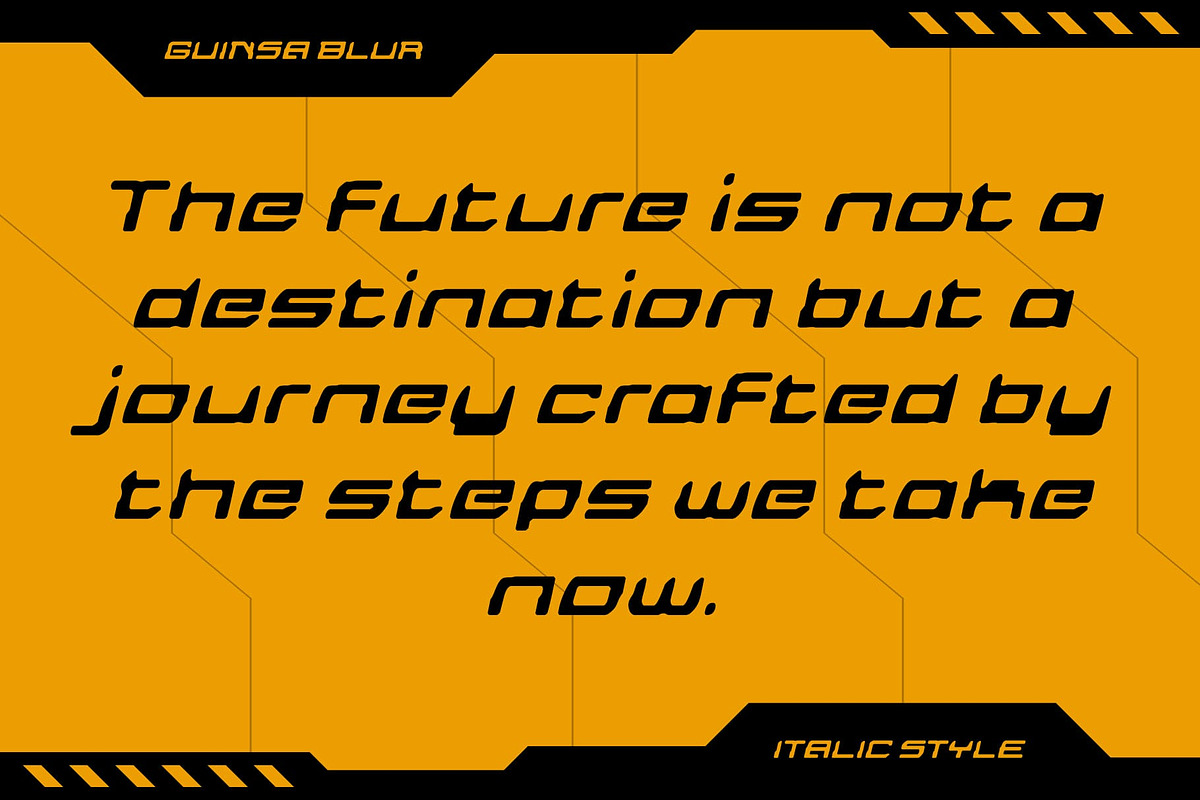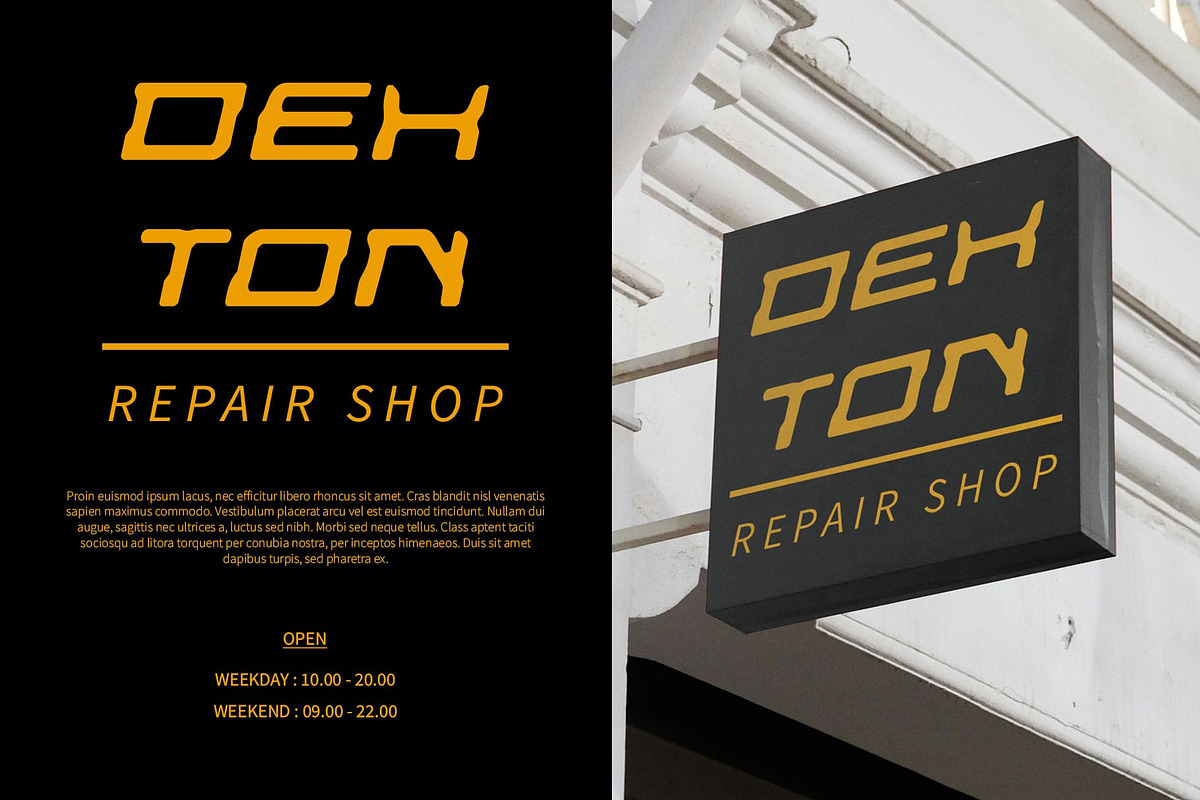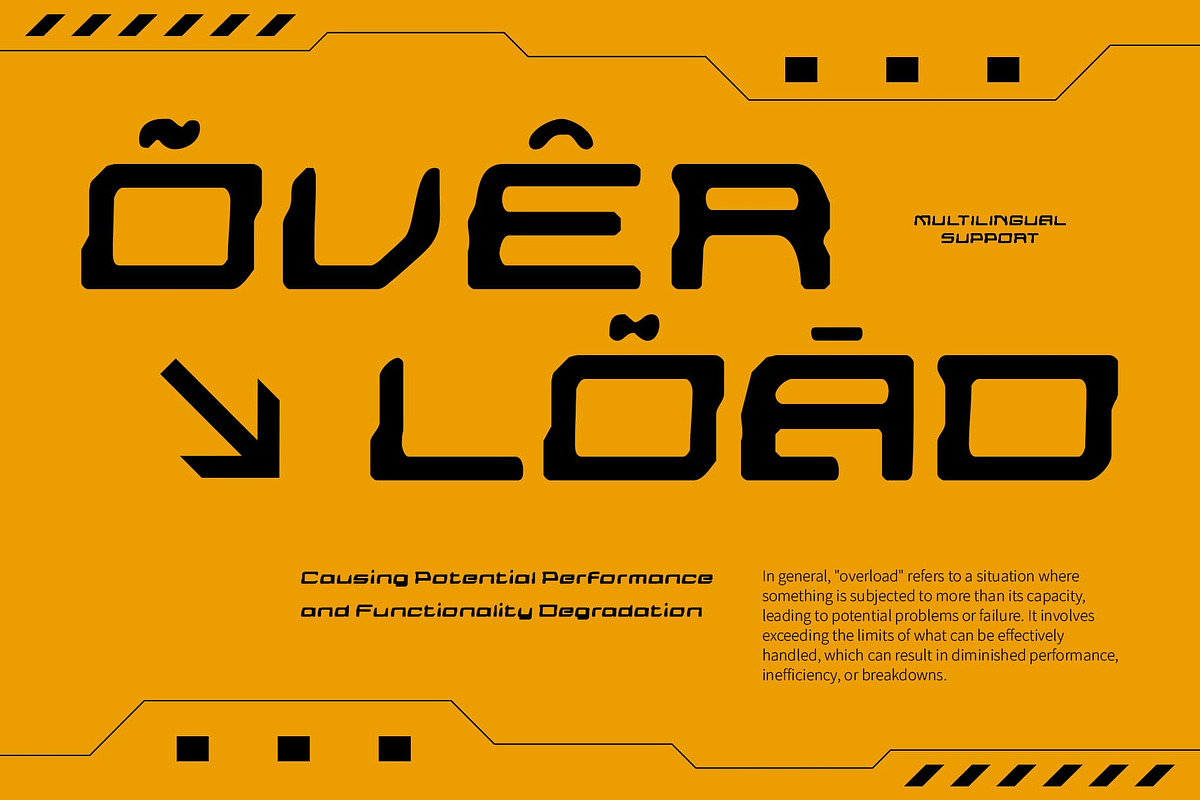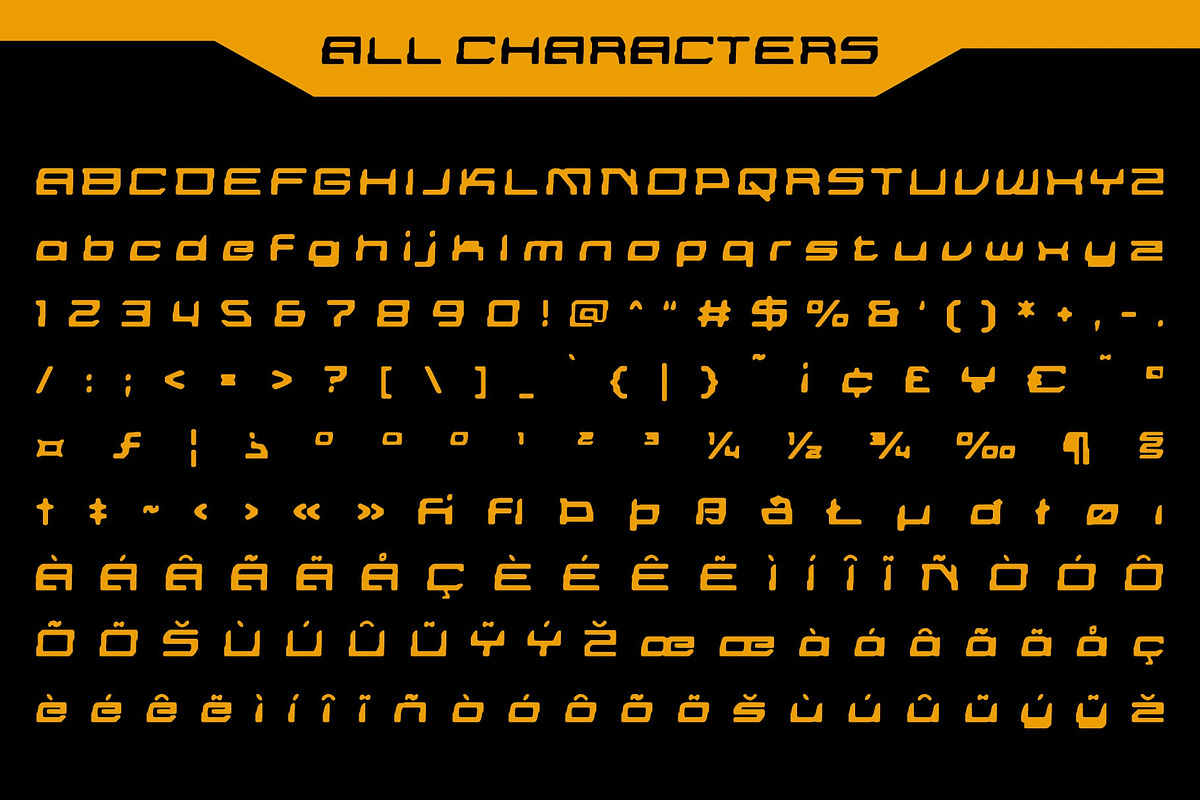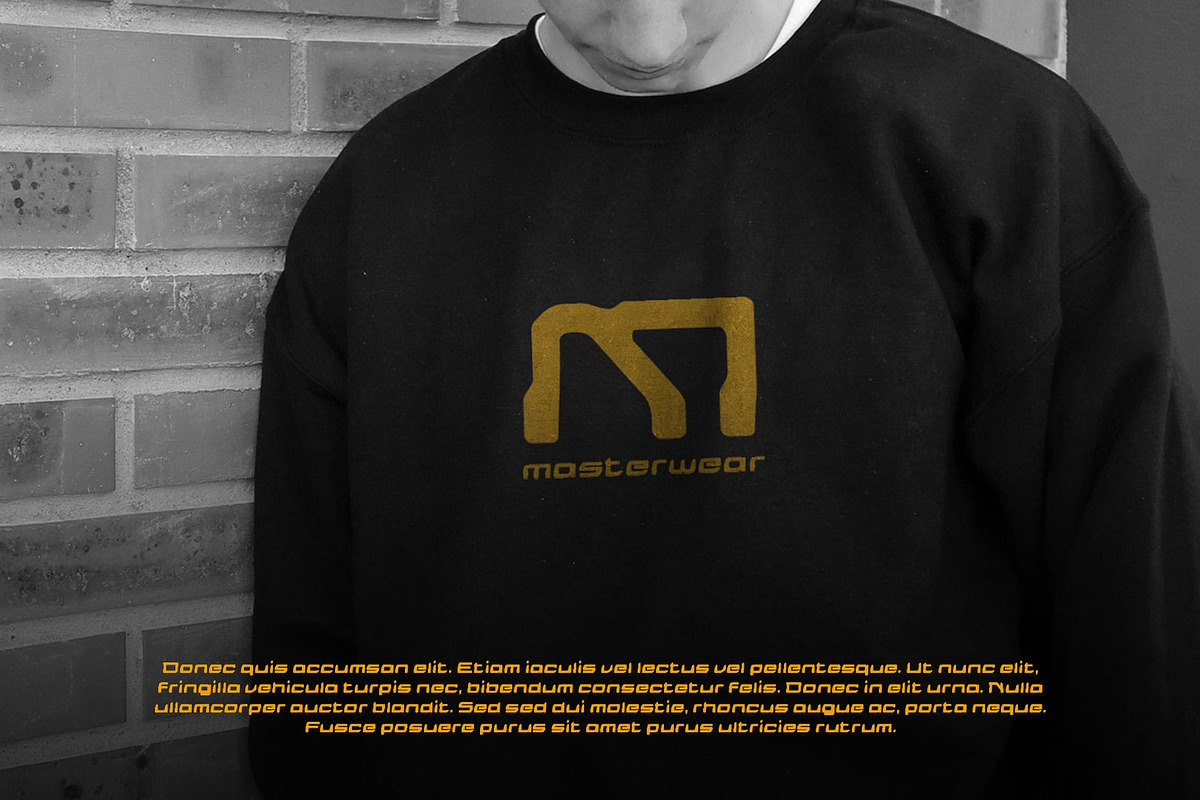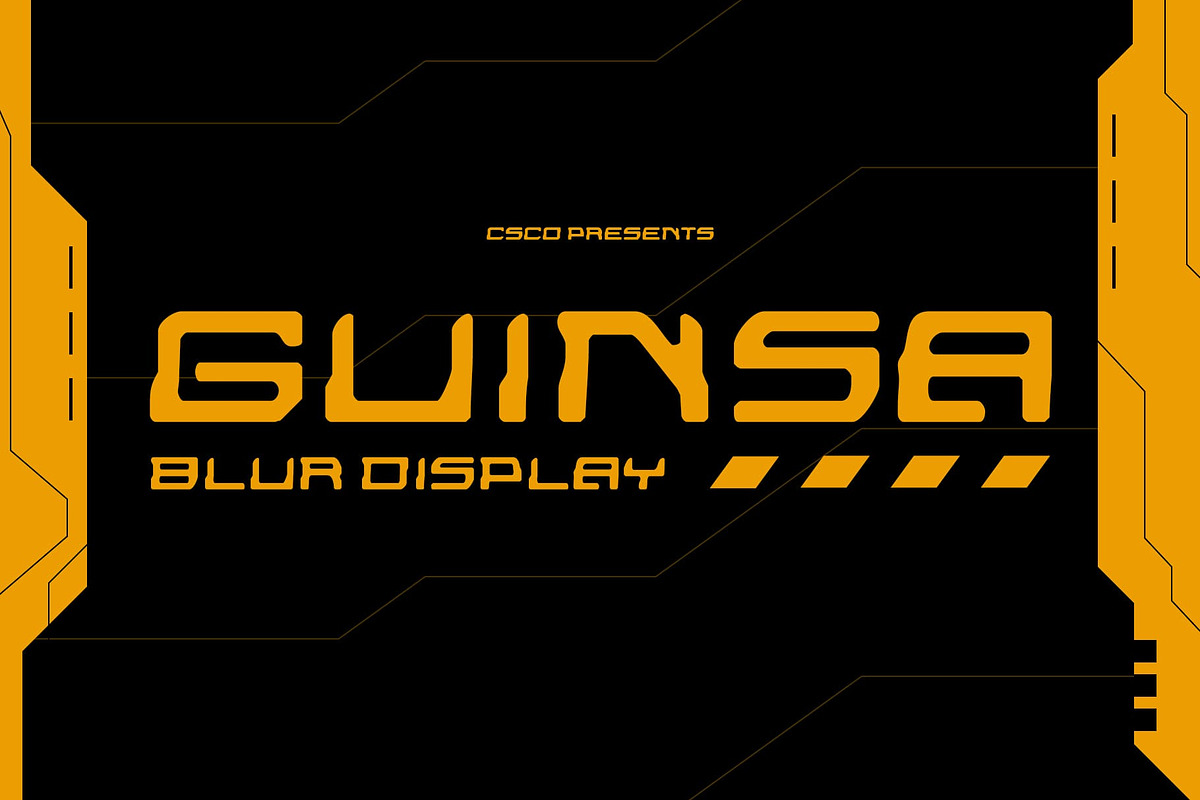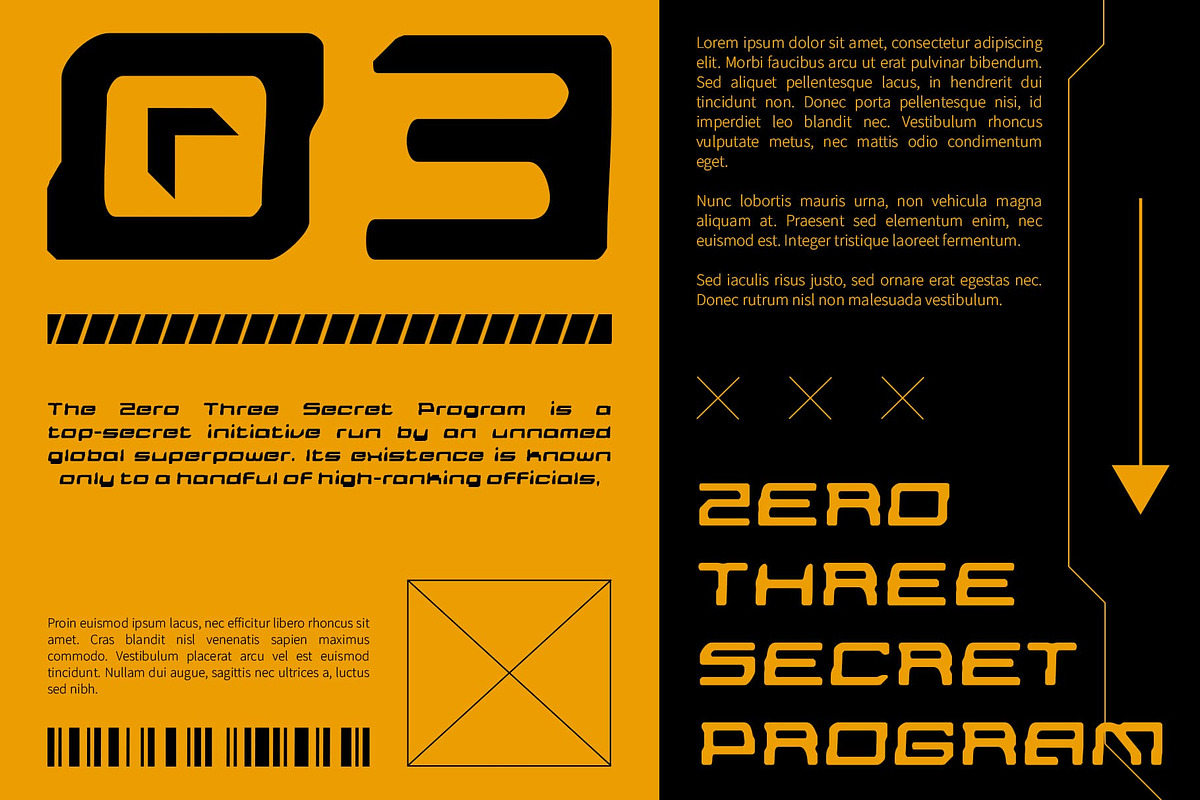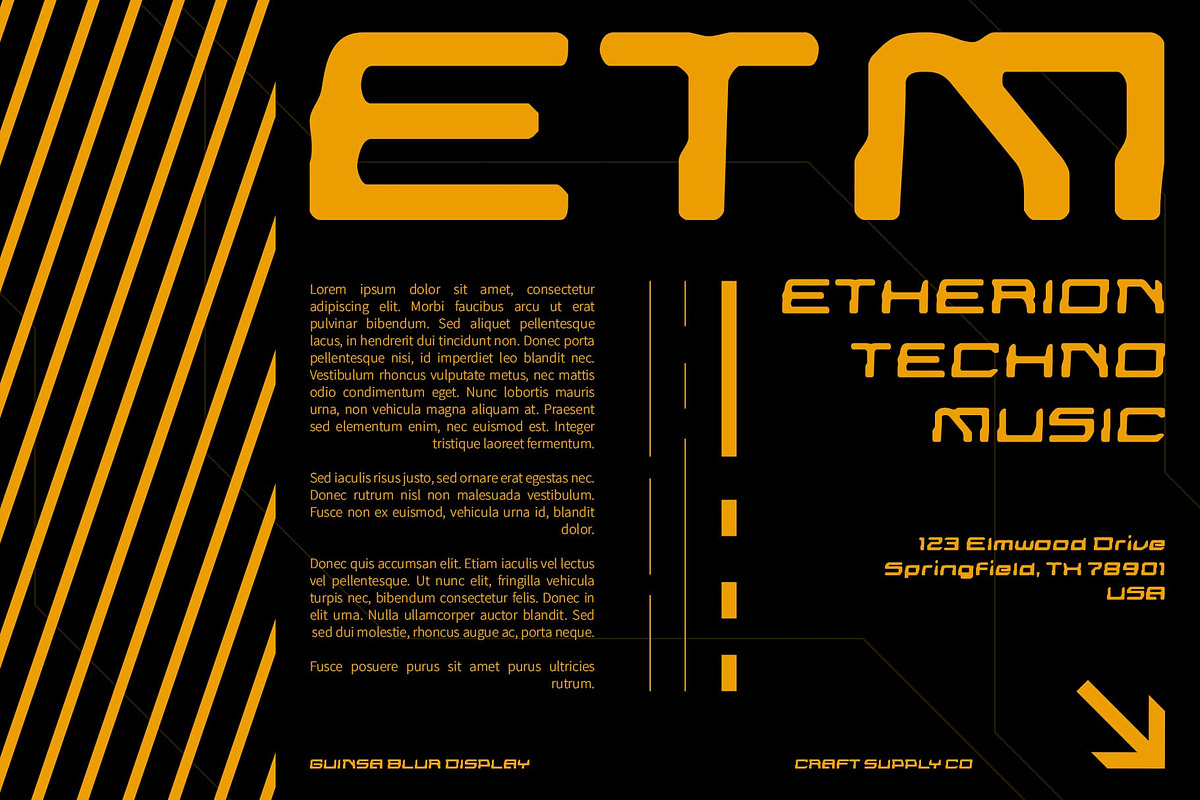
Guinsa Blur
Guinsa Blur – Tech-Futuristic Display Font
Cutting-Edge Design with a Soft Touch Guinsa Blur is a modern display font that marries tech-futuristic aesthetics with a unique blur effect. Featuring clean lines and sharp angles, this font captures the essence of technology and innovation. Its sleek, contemporary design is ideal for conveying a sense of progress and sophistication.
Dynamic Blur Effect for Visual Depth The distinctive blur effect introduces a layer of visual depth and dimension, enhancing the font’s futuristic appearance. This soft, floating quality adds a dynamic and avant-garde touch, making the characters appear as though they are moving or evolving.
Perfect for Modern and Innovative Projects Guinsa Blur is designed for applications that require a cutting-edge, innovative look. Its modern style makes it well-suited for digital designs, technology applications, and creative projects that aim to highlight forward-thinking concepts. Whether for tech branding, futuristic websites, or experimental graphics, this font delivers a bold and visionary impression.
Forward-Thinking Typography for Impactful Design. Combining sharp, tech-inspired design with a soft, dynamic blur, Guinsa Blur stands out as a font that embodies modernity and innovation. It is an ideal choice for any project seeking to make a sophisticated and impactful statement in the digital and creative realms.